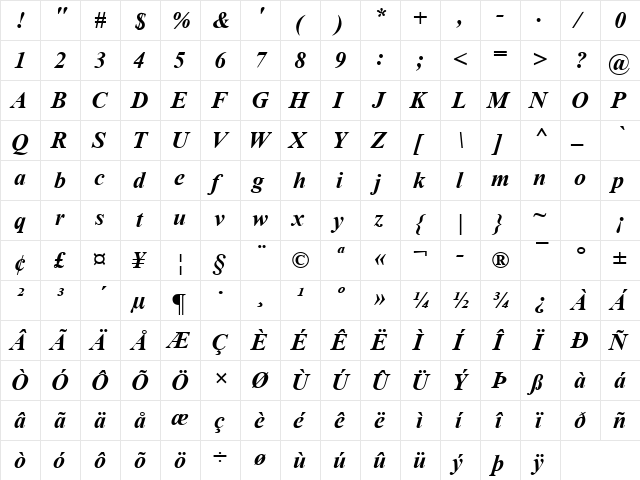
Brain Damage 5 Bold Italic
Design Context for Brain Damage 5 Typeface
Brain Damage 5 is a composed and adaptable typeface that performs quietly and consistently across a wide range of design contexts. Its italic angle brings a sense of urgency and motion to the letterforms. Its bold stroke weight gives it real presence on the page.
Pro Tip: Use Brain Damage 5 for emphasis, pull quotes, and subheadings where its slanted energy can add rhythm to the layout.